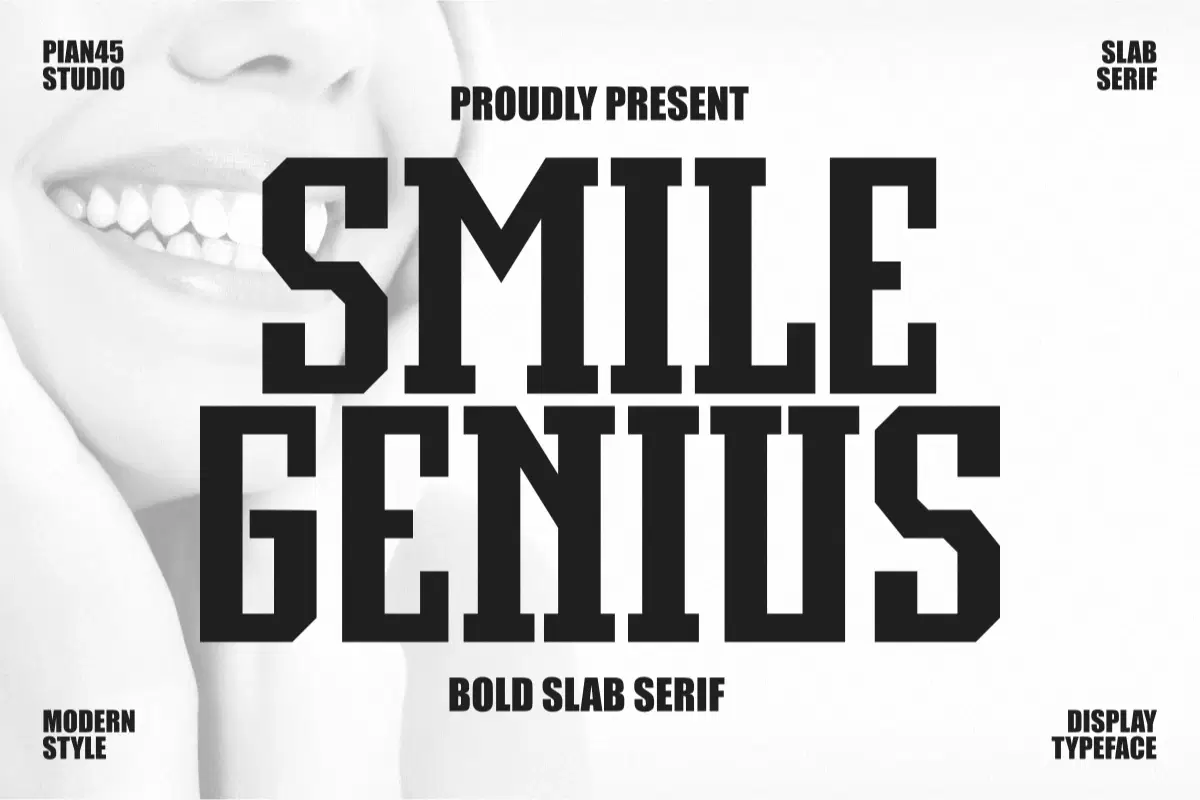
Smile Genius - Bold Slab Serif Font
Introducing Smile Genius, a bold slab serif font designed to bring confidence and modern character to your creative projects. With its strong structure and clean lines, Smile Genius is perfect for logos, posters, branding, headlines, t-shirt designs, and editorial layouts. This display typeface combines vintage slab serif charm with a fresh, modern twist — making it ideal for both digital and print use. Whether you're creating a bold marketing design or a stylish typography composition, Smile Genius adds power and personality to your work.